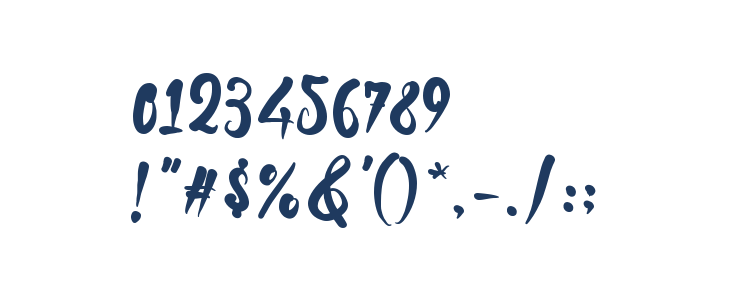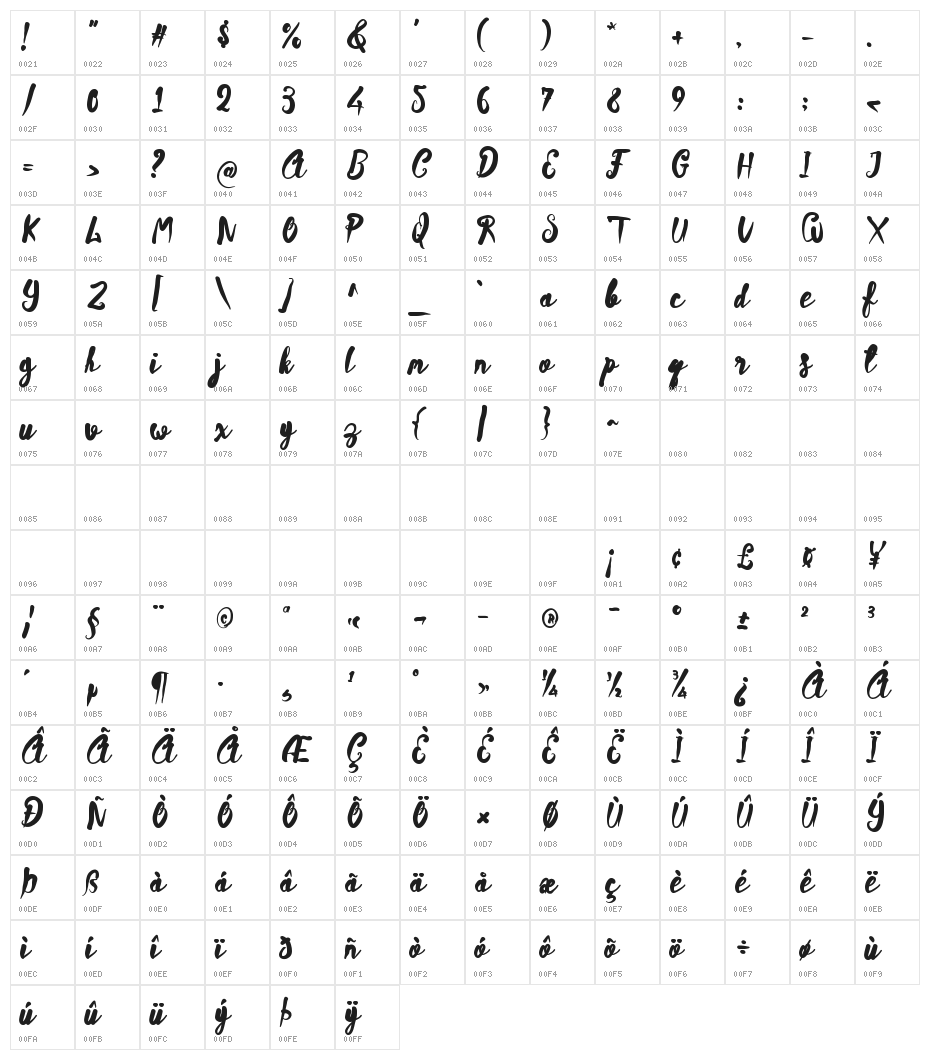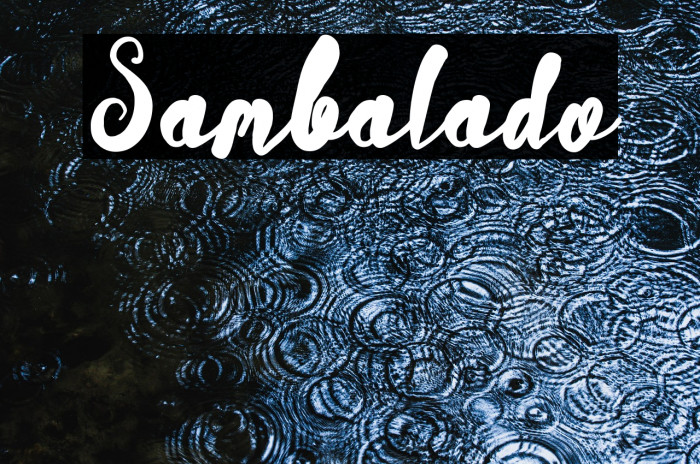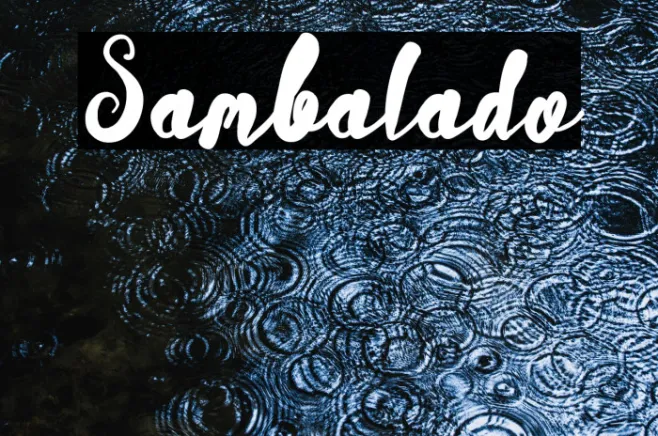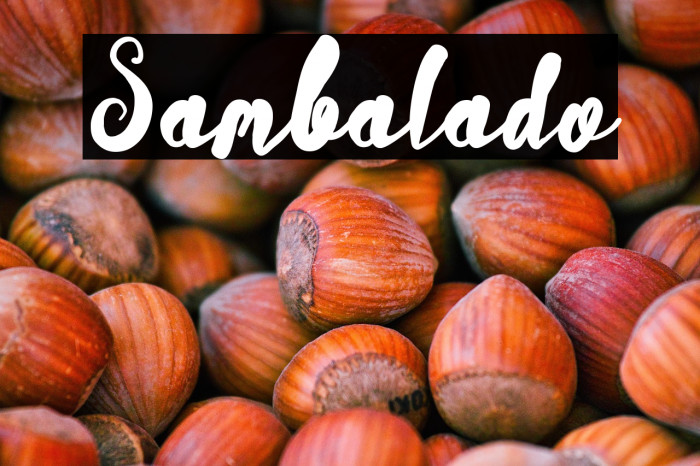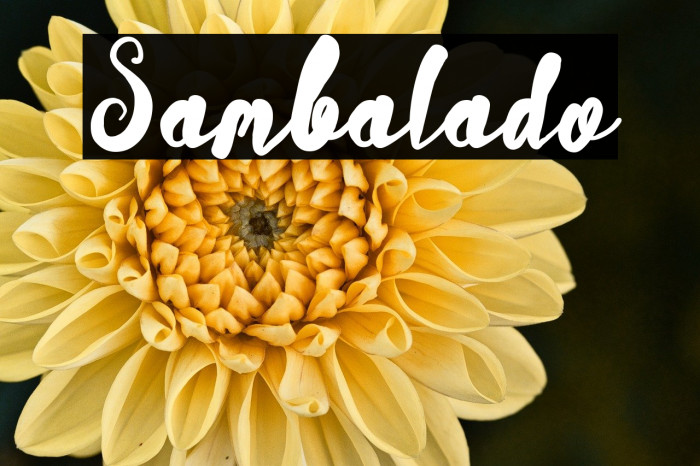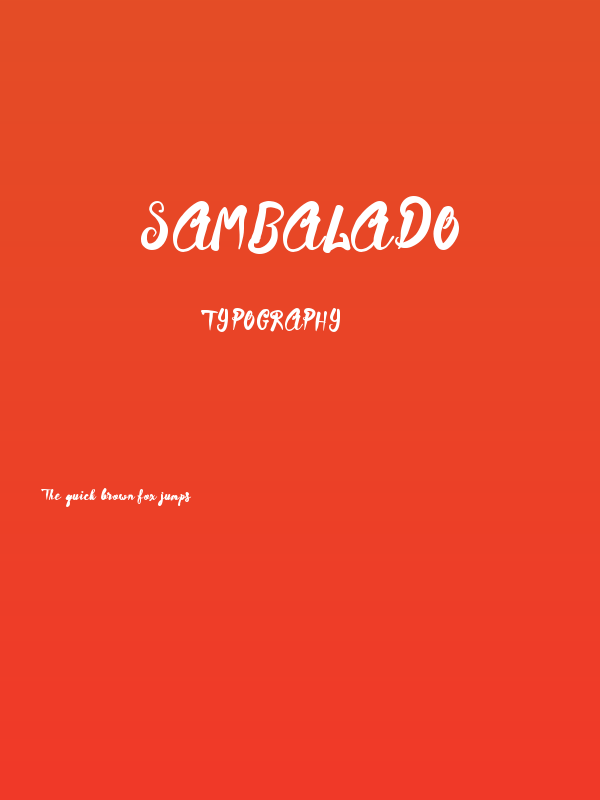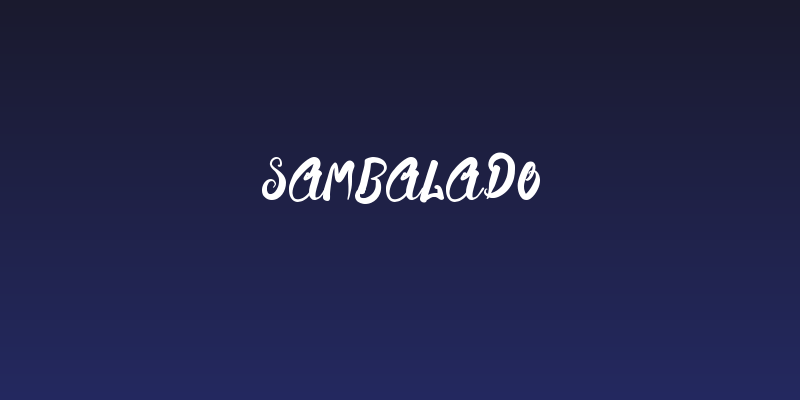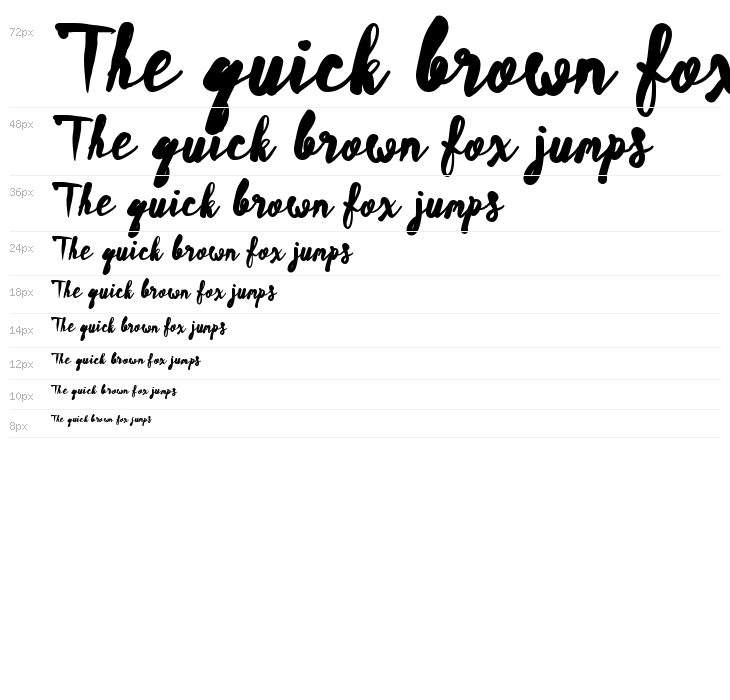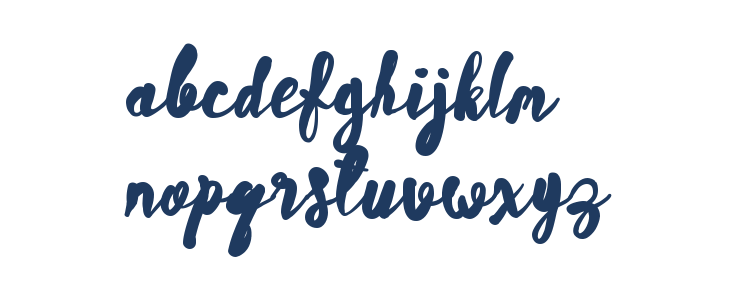
Sambalado Font
Sambalado Description
This font features a bold and expressive script style, characterized by its flowing, cursive letterforms. The strokes are thick and dynamic, giving a sense of movement and energy. The uppercase letters are particularly ornate, with swashes and loops that add a decorative flair. The lowercase letters maintain a consistent style, with rounded edges and a playful, handwritten feel. Numbers and special characters are designed to match the overall aesthetic, ensuring a cohesive look across all text elements. This font is ideal for projects that require a personal touch or a sense of creativity.
| Proposed Projects | Ideal for branding, invitations, greeting cards, and creative projects that require a personal touch. |